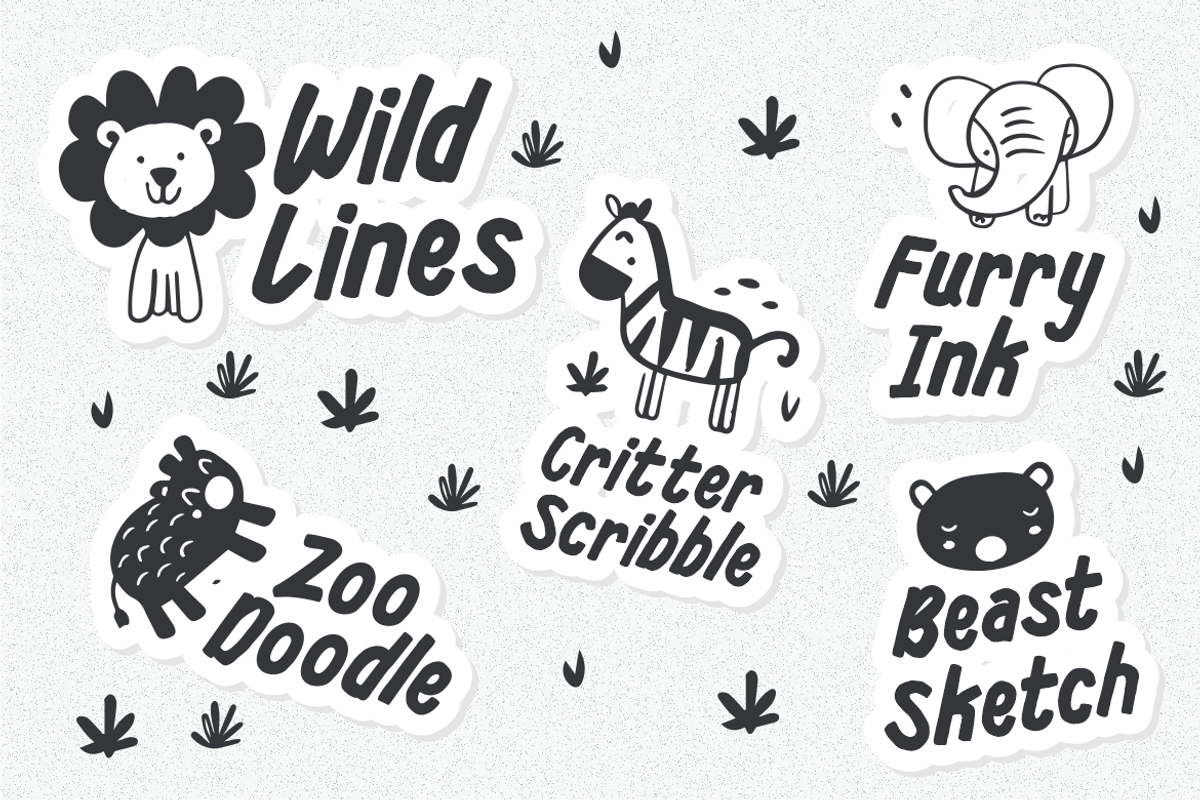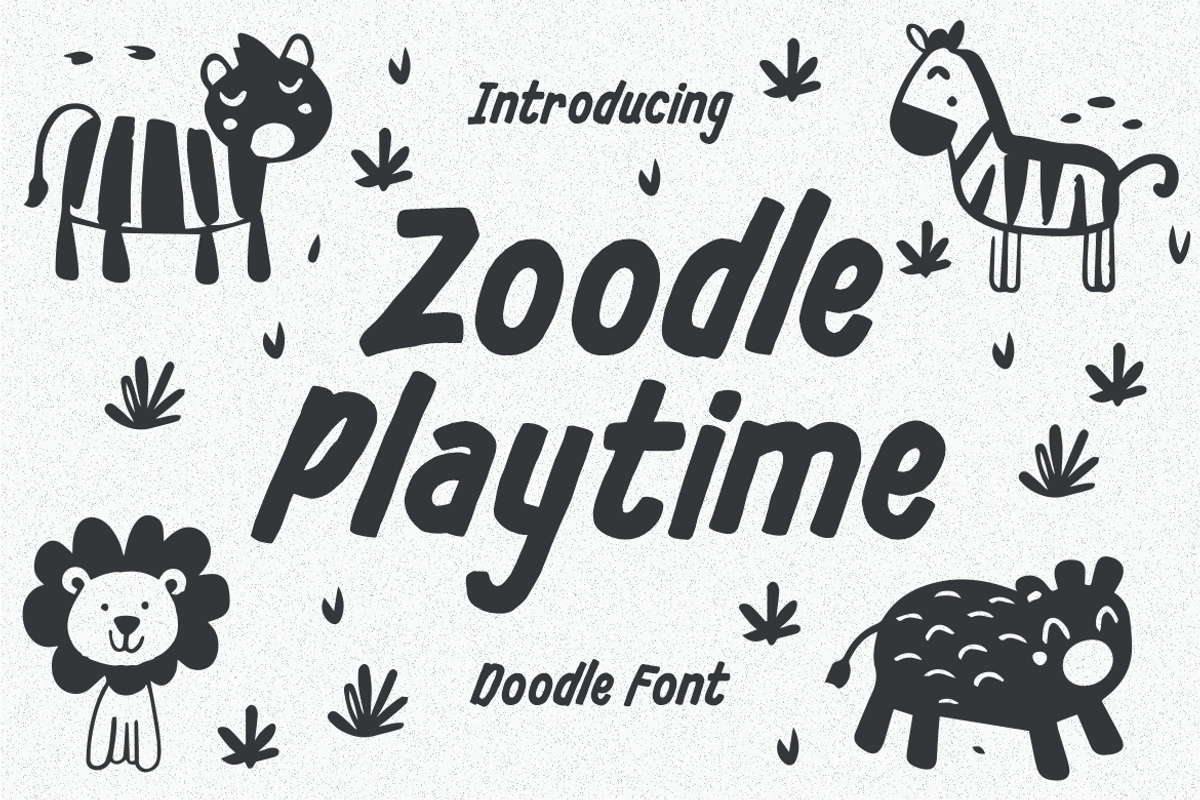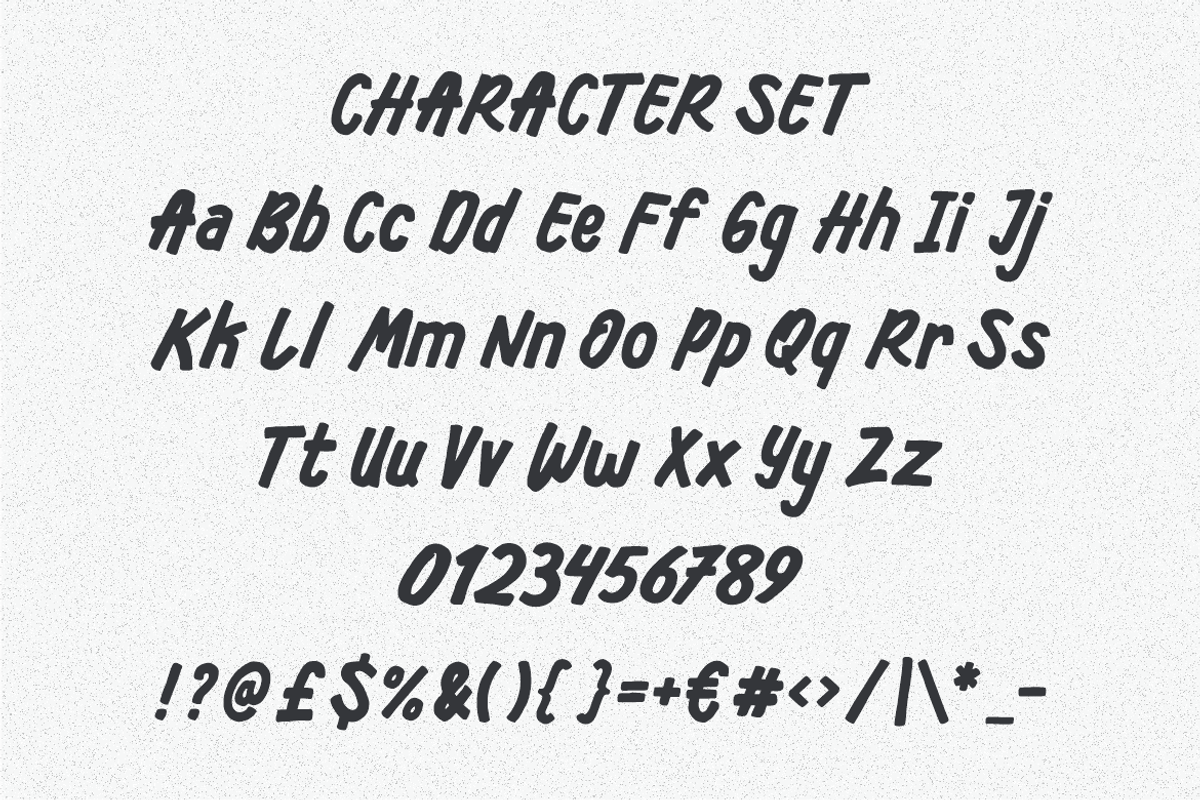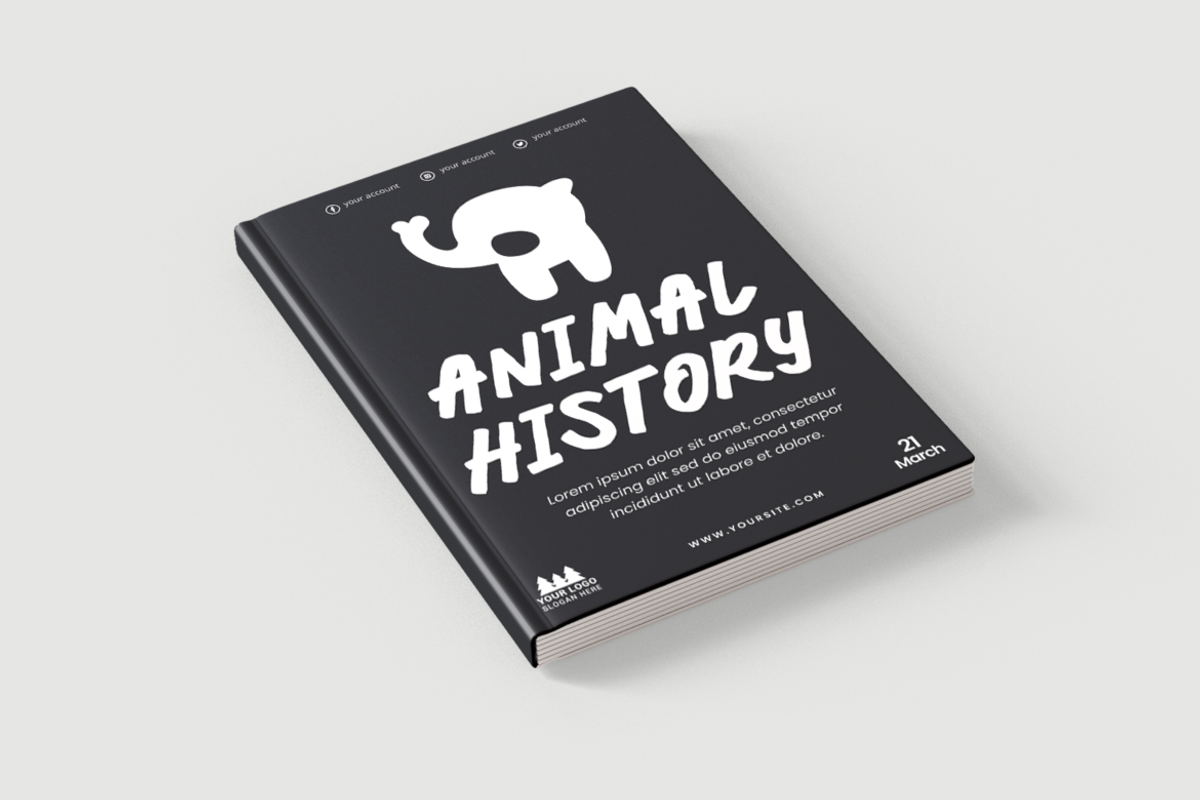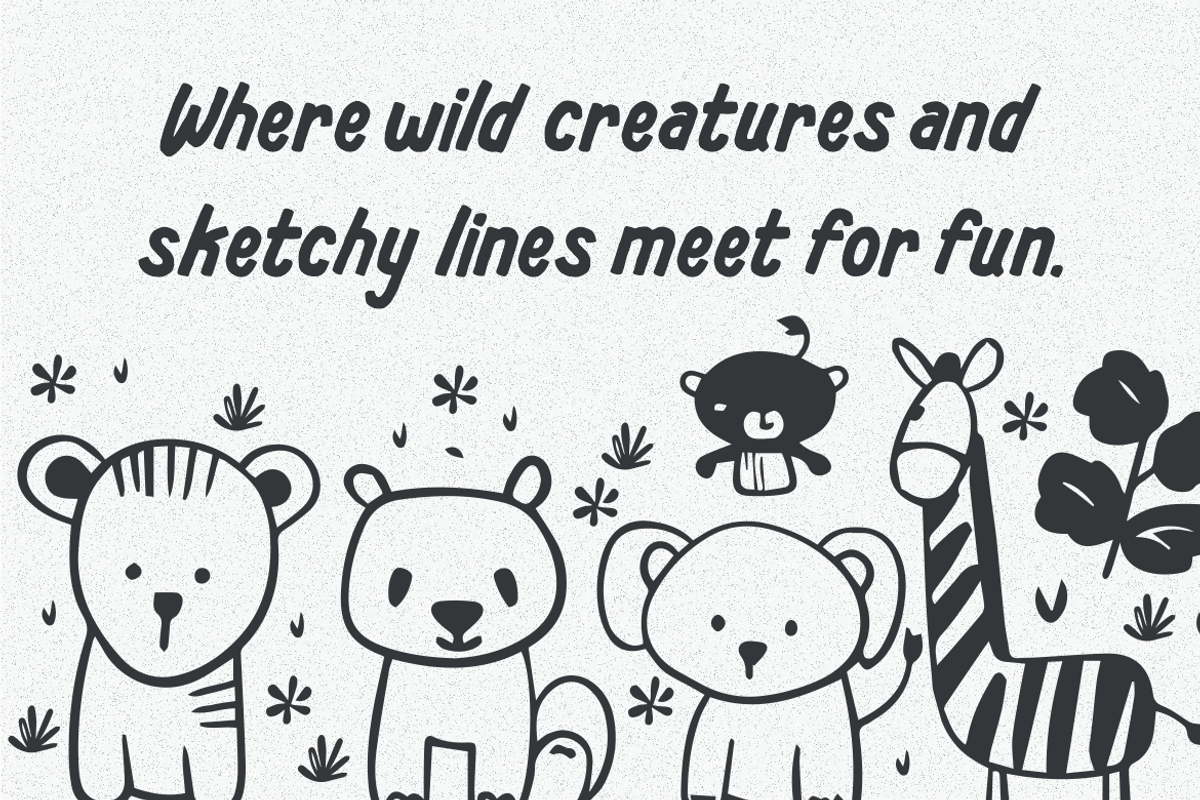
Zoodle Playtime Doodle Brush Font
Zoodle Playtime Doodle Brush Font brings a warm and friendly look to any creative project. Its handwritten strokes feel energetic, soft, and slightly uneven, giving each letter a natural hand-drawn rhythm. The shapes lean gently and feature rounded edges with loose, sketchy curves, creating a fun and spontaneous impression. This font carries a brush-based structure, with medium weight and smooth pressure changes, which makes the characters feel expressive and lively. Zoodle Playtime Doodle Brush Font fits perfectly into playful themes because its casual forms and doodle-like shapes feel lighthearted and inviting. These qualities make it ideal for designs that need warmth, personality, and a handcrafted touch.
This font works well for logo design, branding projects, packaging, posters, children’s books, stickers, headlines, greeting cards, invitations, and any fun-themed media. The relaxed construction gives your text a friendly voice, while its clean flow keeps the reading experience smooth. It combines a creative doodle feel with simple readability, giving you a design asset that works in many contexts. Its brush style adds movement and charm, making your messages look expressive without losing clarity. Use this font when you want your typography to feel lively, personal, and full of character.